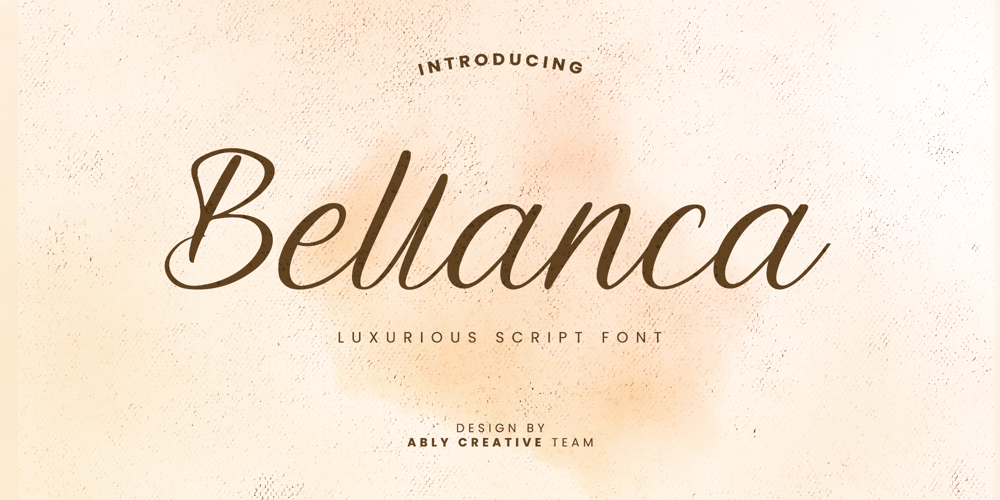
Bellanca
Bellanca font
Bellanca Font Family was designed by Amrullah Medan, Amrullah, Dedi Purwanto and published by Ably Creative. Bellanca contains 1 styles and family package options. Bellanca font is a new organic calligraphic font. thats the perfect blend, with the total number of 404 glyphs, is equipped with OpenType features. Uppercase letters can alternate between at different forms and lowercase letters. These effects include start and end forms words. To activate the optional glyphs you may click on Swash, Contextual, Standard Ligatures, Stylistic or Discretionary Ligatures buttons in any OpenType savvy program or manually choose the characters from Glyph Palette. Bellanca font might be the choice to use on creating headlines, logos & posters for branding and packaging purposes. Hope you enjoy.